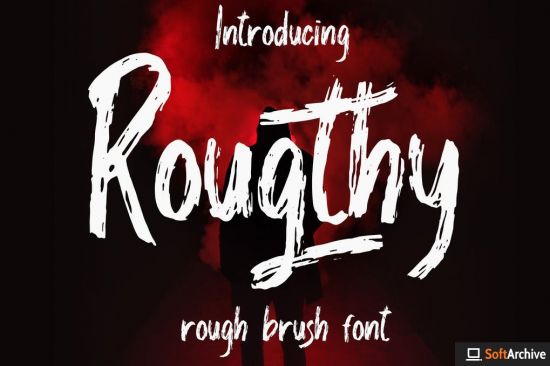
Rougthy was inspired by the typography of natural brushes. Written in quick motion using a brush pen, it's a bit dry and looks realistic. It is suitable for commercial needs or magazine fashion design, offer logos, product packaging, headlines, posters, film,merchandise, social media & other greeting cards.